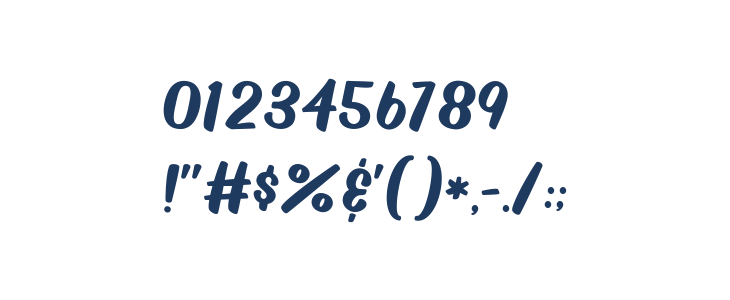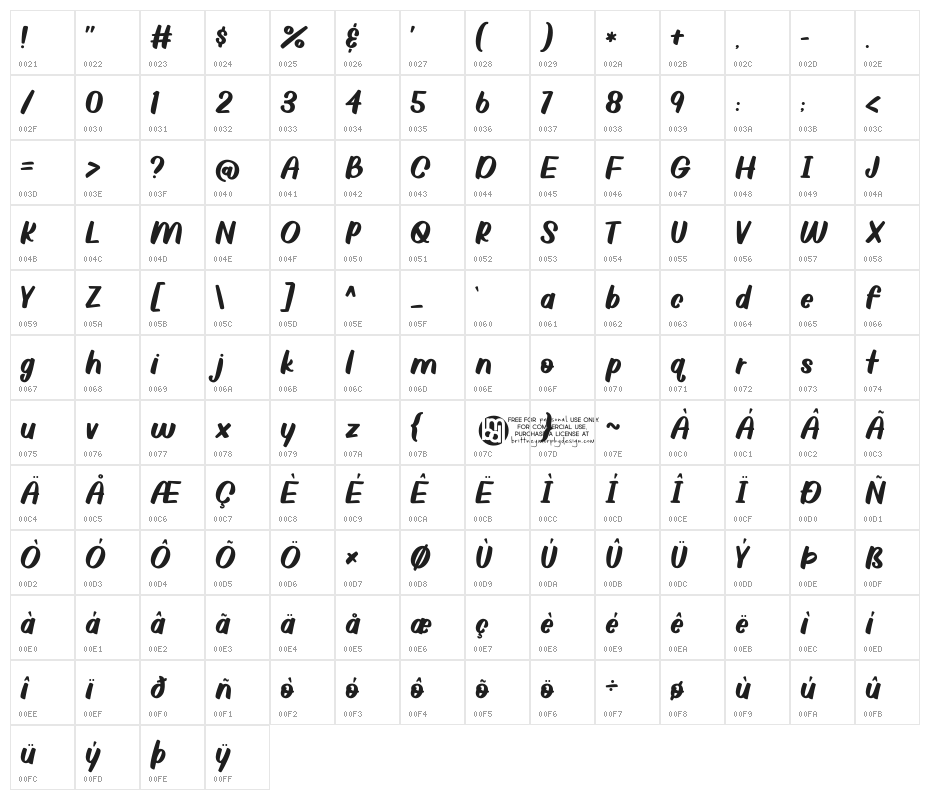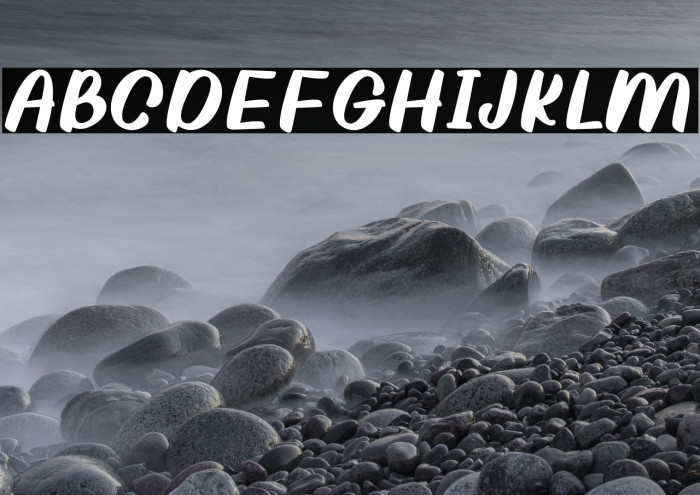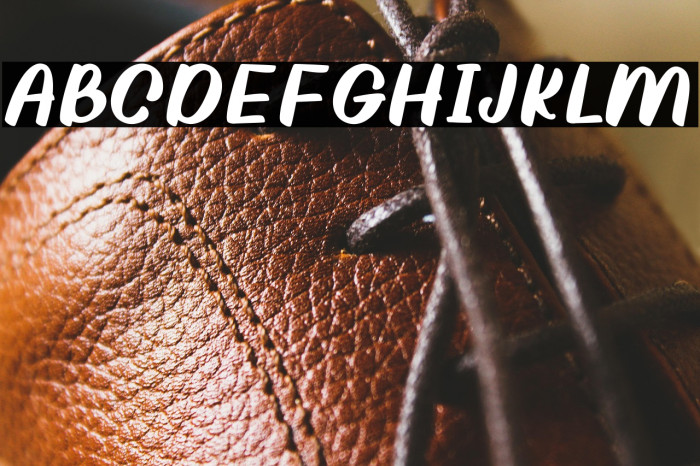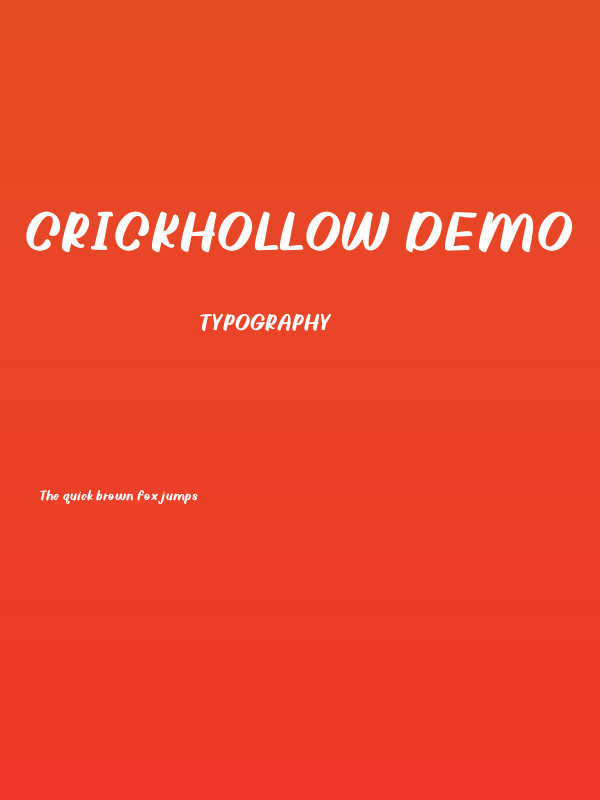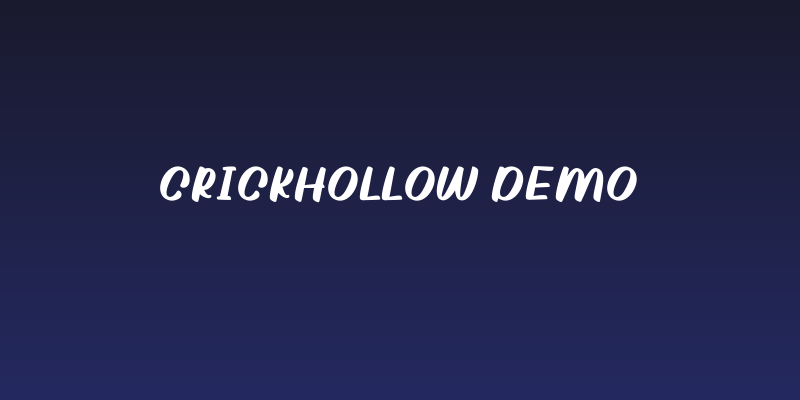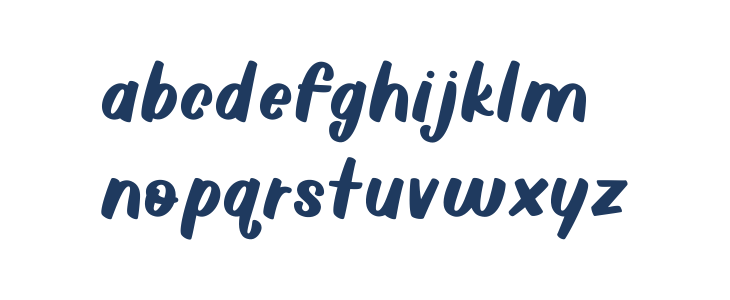
Crickhollow Demo Font
Crickhollow Demo Description
This font features a playful and bold script style, characterized by its smooth, flowing curves and slightly slanted letters. The uppercase letters are prominent and rounded, while the lowercase letters maintain a consistent, lively rhythm. The numerals are clear and easy to read, matching the overall energetic feel of the alphabet. Special characters are well-integrated, maintaining the font's cohesive look. Its bold strokes and dynamic appearance make it ideal for projects that require a touch of whimsy and creativity.
| Proposed Projects | Ideal for greeting cards, playful branding, children's books, and creative posters. |